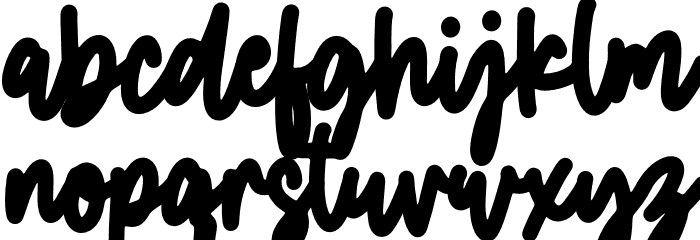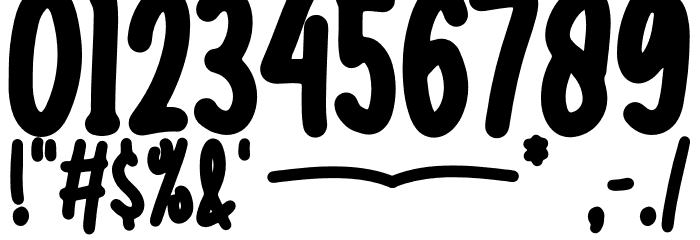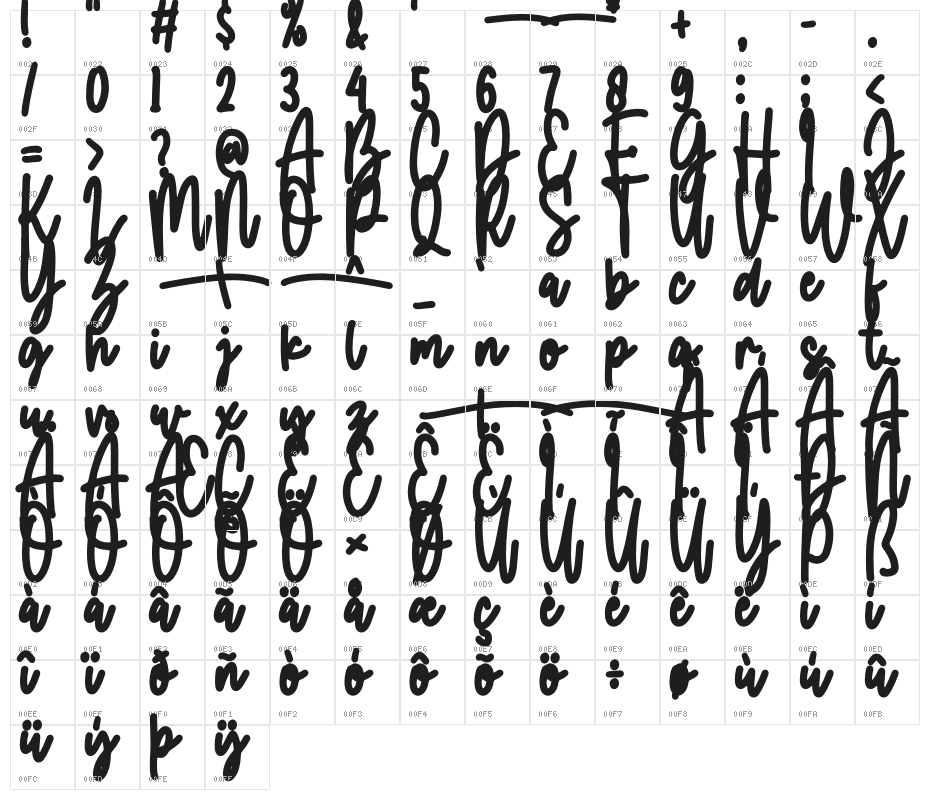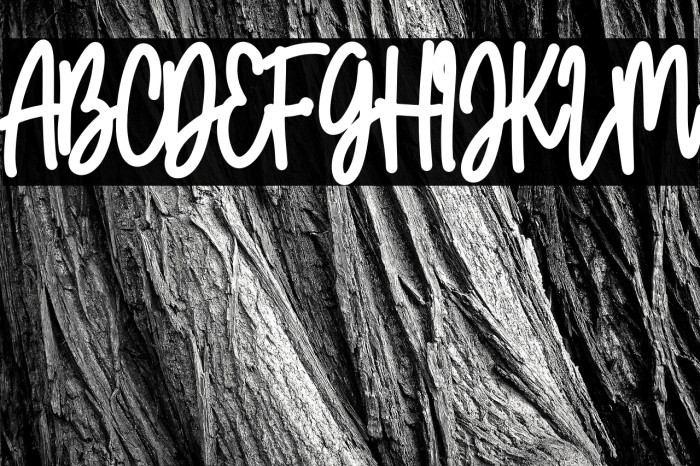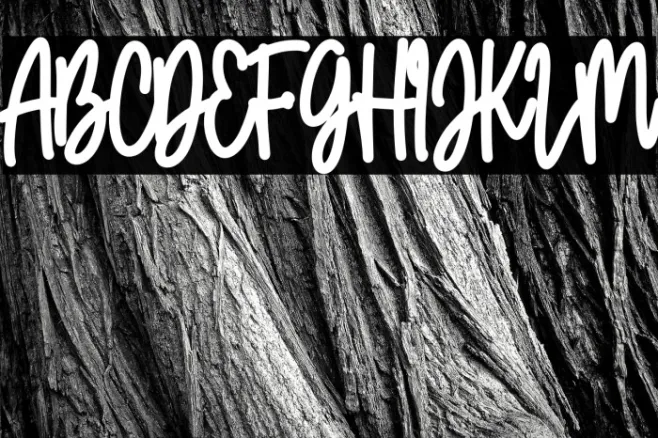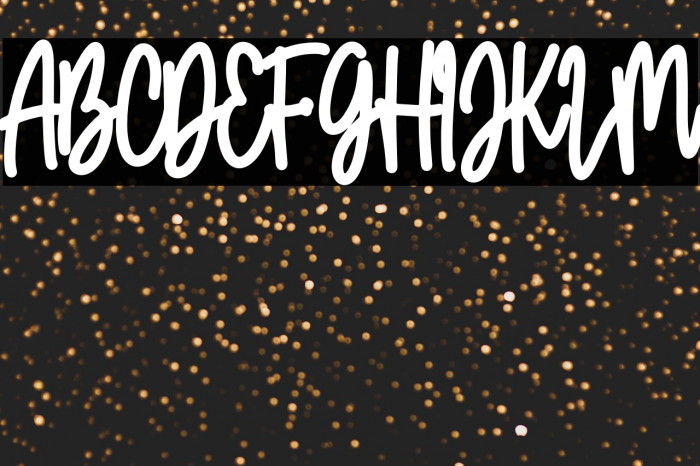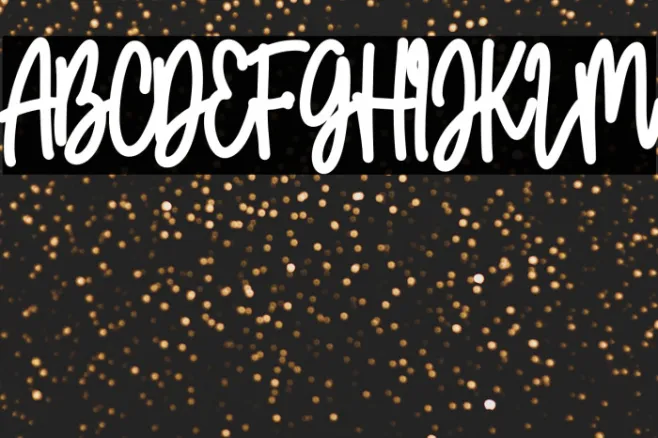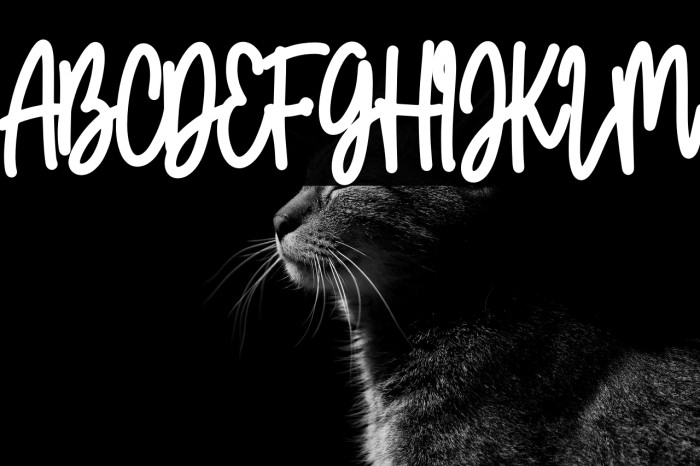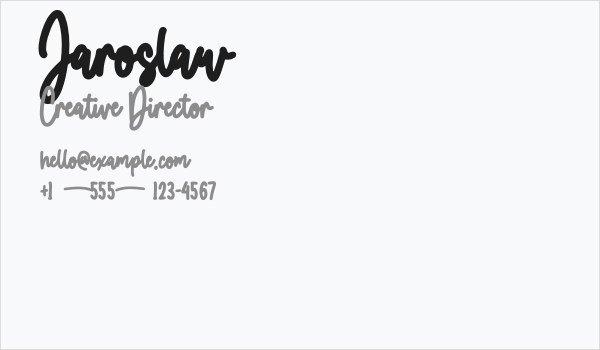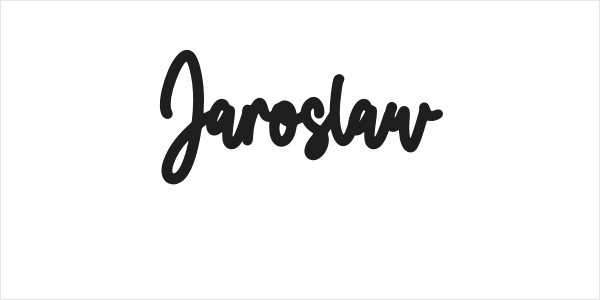
Jaroslaw Font
This font features a bold, handwritten style with a playful and energetic appearance. The letters are connected in a cursive manner, giving it a fluid and dynamic look. The uppercase letters are tall and slightly narrow, while the lowercase letters maintain a consistent height, enhancing readability. The numbers are bold and rounded, matching the overall style of the alphabet. Special characters are included, maintaining the same bold and playful aesthetic. This font is ideal for projects that require a personal touch or a casual, friendly vibe.
- Font: Jaroslaw
- Proposed Projects: Ideal for greeting cards, posters, social media graphics, and branding projects that require a personal and casual touch.
- Category: Handwritten